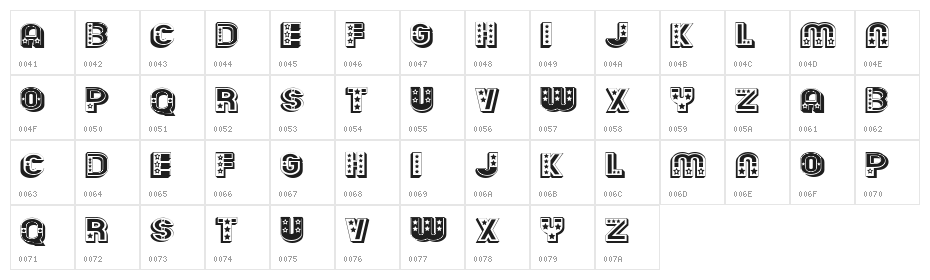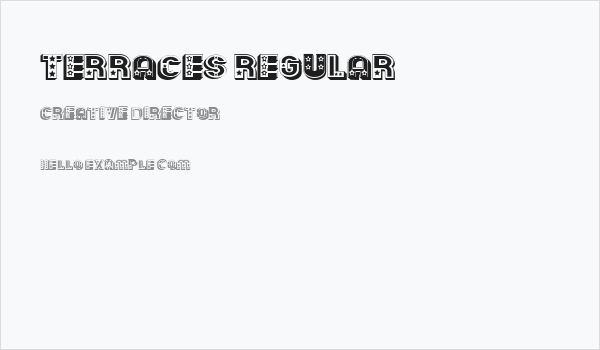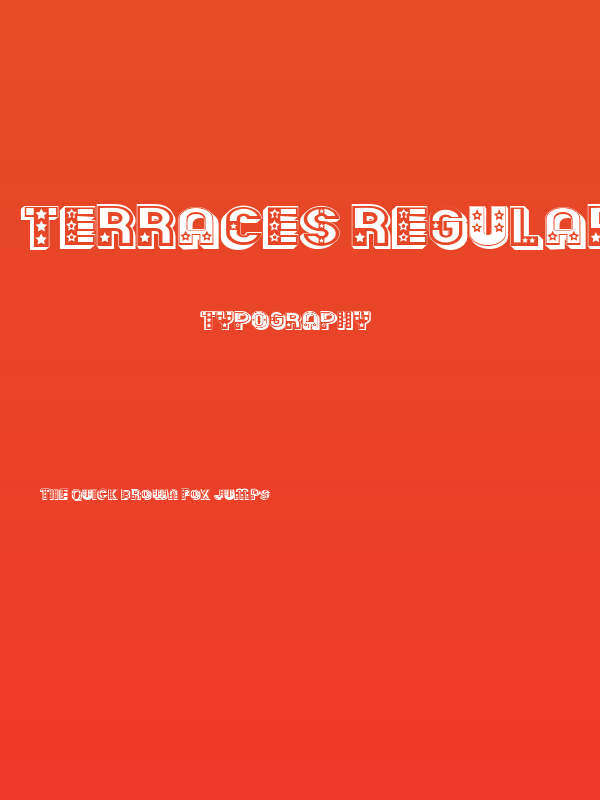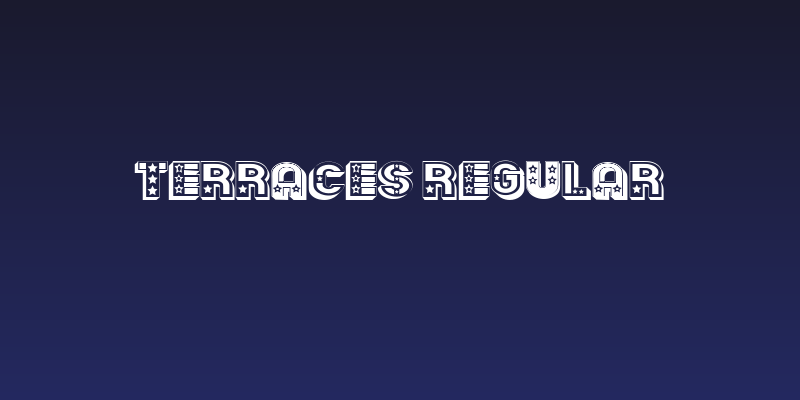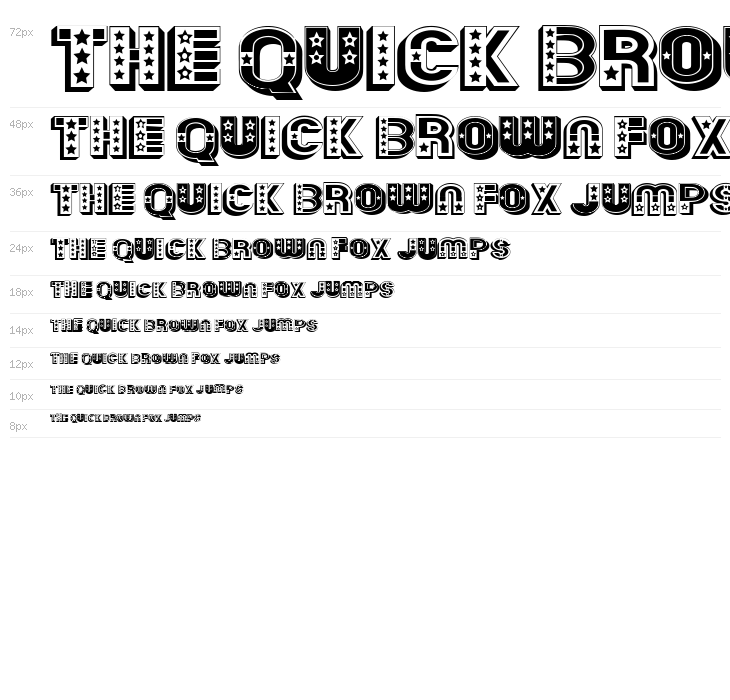
Terraces Regular Font
Terraces Regular Description
This font features a bold and decorative style with a unique star pattern embedded within each character. The letters are outlined with a thick black border, enhancing their visibility and impact. The design is playful and eye-catching, making it ideal for creative and fun projects. Each character maintains a consistent height and width, contributing to a uniform appearance. The star motifs add a whimsical touch, making the font suitable for themes that require a sense of excitement and celebration.
| Proposed Projects | Ideal for party invitations, children's book covers, event posters, and festive banners. |